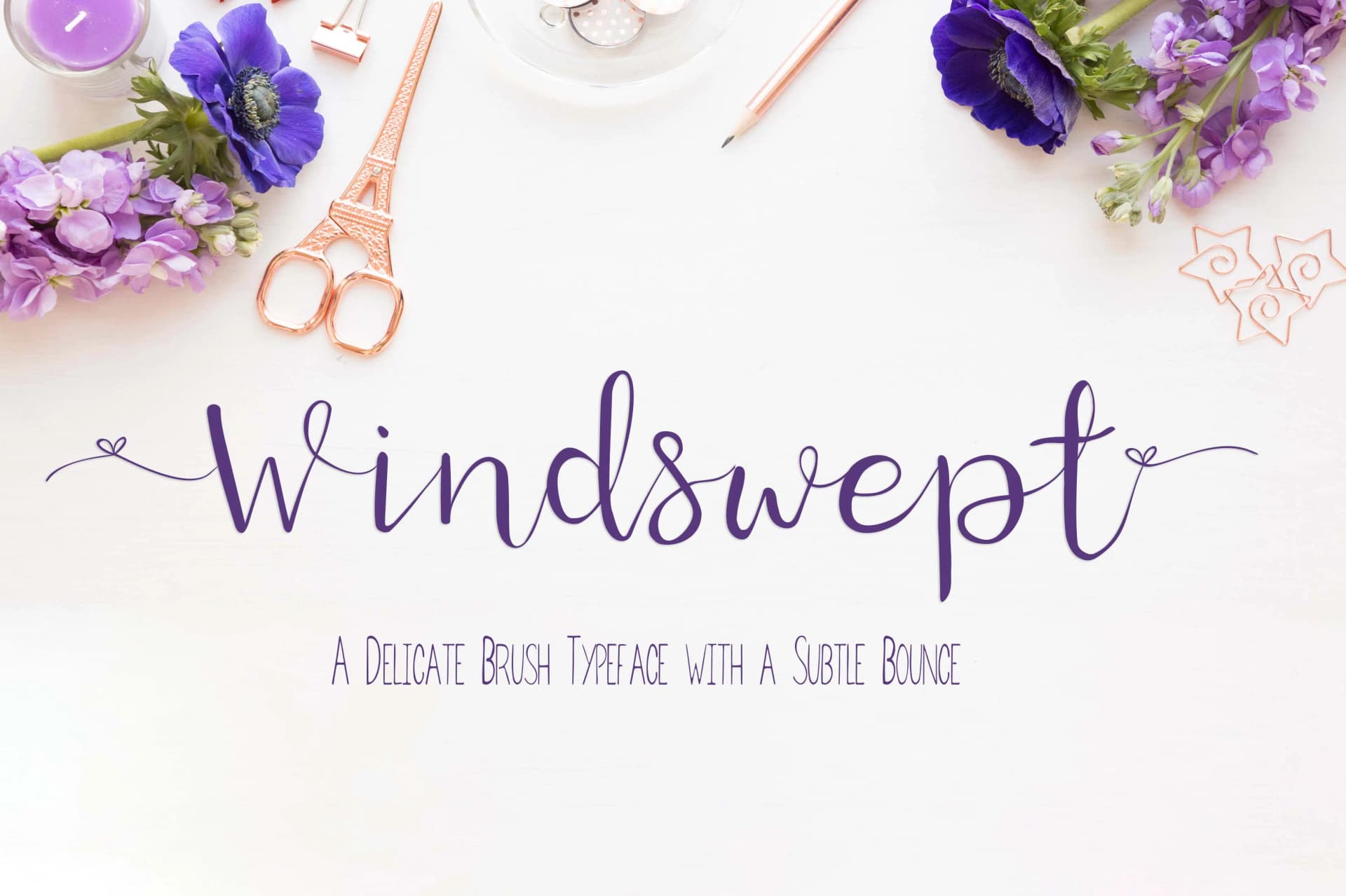
1 / 5About Windswept Font
Windswept by Kylie Ellway is a contemporary brush script that bridges organic, hand-drawn sensibility with refined typographic precision. The flowing strokes carry a gentle energy that feels both personal and professionally grounded, avoiding overwrought flourishes while maintaining character-driven charm throughout the letterforms. This typeface shines across numerous design applications where authentic personality enhances brand presence. Wedding invitation suites benefit from its modern approach to script elegance, while artisanal product packaging, think boutique candle labels, specialty tea boxes, and handmade skincare brands, gains a voice that speaks directly to quality-conscious consumers. The font also excels for personalized greeting cards, custom wall art decals, and small-batch business stationery where standing out matters. Its careful balance of approachability and sophistication makes it equally suited for logo design, social media graphics, and editorial layouts that call for warmth without sacrificing professionalism. What sets Windswept apart is how naturally the letters flow together without demanding extreme versatility from users. The script reads clearly at various sizes while maintaining its distinctive hand-lettered aesthetic, making it adaptable across both print and digital projects. Designers consistently choose this weight and style for situations where generic scripts feel impersonal, yet elaborate offerings feel inappropriate. Discover Windswept Font by Kylie Ellway on Creative Fabrica and add this refined brush script to your typographic toolkit.
Windswept Font is a script font that shines as a display or heading face. Pair it with a clean sans-serif or serif font for body text — the contrast creates a clear hierarchy while the two styles stay balanced and easy to read.